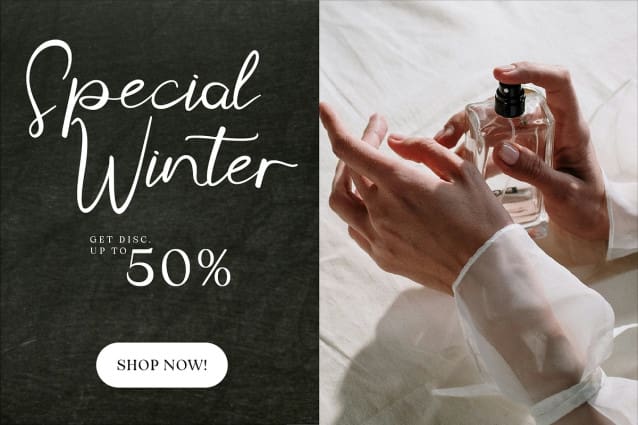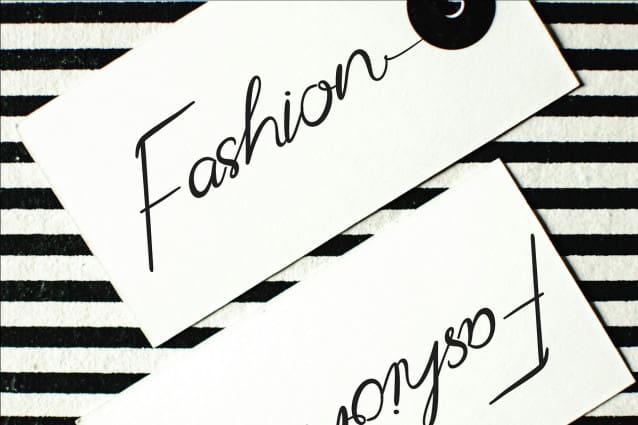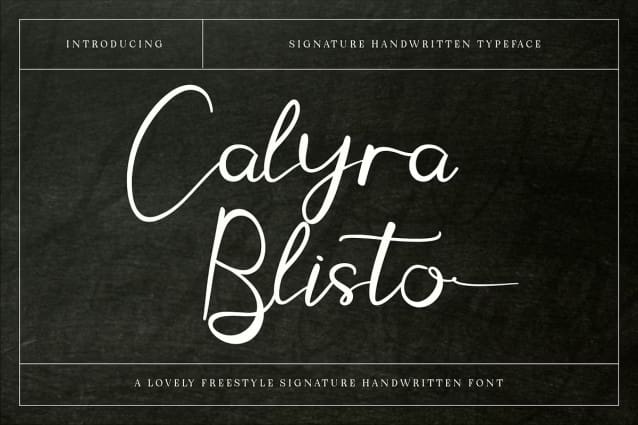
Calyra Blisto Font
Calyra Blisto Font is a charming freestyle handwritten font that embodies the spirit of creativity and freedom. Its naturally inconsistent strokes give it a dynamic, hand-drawn feel that radiates authenticity and charm. This font exudes a sense of warmth and approachability, making it perfect for designs that aim to capture a personal or heartfelt touch. Whether for invitations, branding, quotes, or social media content, Calyra Blisto adds a playful yet elegant flair, making your projects truly unique.